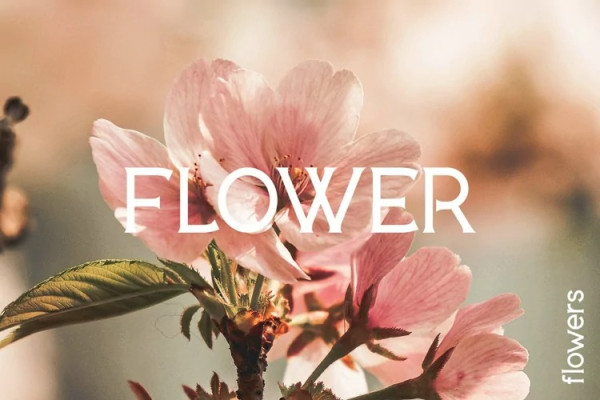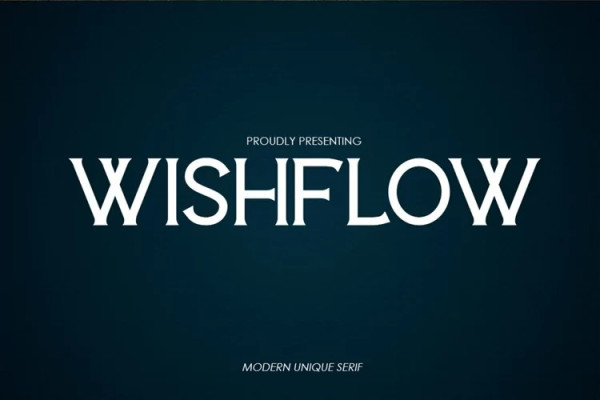
Wishflow Font
Wishflow Font is font modern specifically made for luxury, fashion and stylish statement with it’s unique flare that makes it perfect for beautiful headlines, branding, logotypes & display usage. This all-caps typeface is also perfect for creating outstanding logos, promotional content and marketing graphics that can really grab attention from your visitors.
Add some letter-spacing to create unique headlines – an essential use case of modern minimalist design trend. Please see the examples shown above to get an idea about the capability of this typeface.